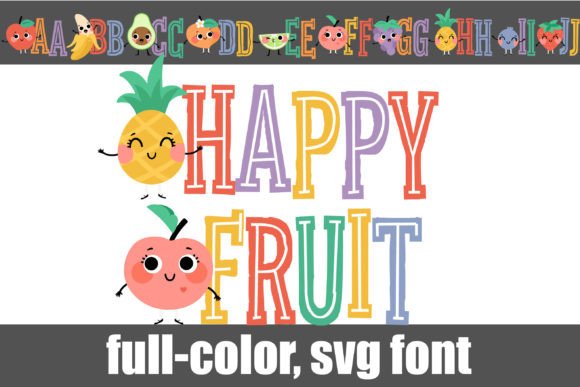
Journey into the whimsical world of Happy Fruit Font, the delightful font family that brings a touch of fruity freshness to your digital creations. Picture this: a vibrant array of uppercase letters, each adorned with a playful fruit illustration, while the lowercase letters bask in minimalist elegance. This captivating font collection is brought to you by Illustration Ink, the masterminds behind imaginative and captivating typefaces.
But the magic doesn't stop there. Happy Fruit Font's hidden gem lies in its alternate case, a treasure trove of additional colors accessible through your system's character map. Explore a kaleidoscope of hues and let your creativity run wild as you craft designs that pop with vibrancy.
Let Happy Fruit Font be your secret weapon for creating designs that burst with personality. Its versatility knows no bounds, from simple text logos to intricate illustrations. And with the scalability of vector-based SVG fonts, you can enlarge or reduce your designs without compromising on quality.
So, dive into the world of Happy Fruit Font, where your creativity takes center stage. Let your designs radiate with joy and let your words dance with delight. Embrace the fruity charm of Happy Fruit Font and experience the transformative power of colorful typography.